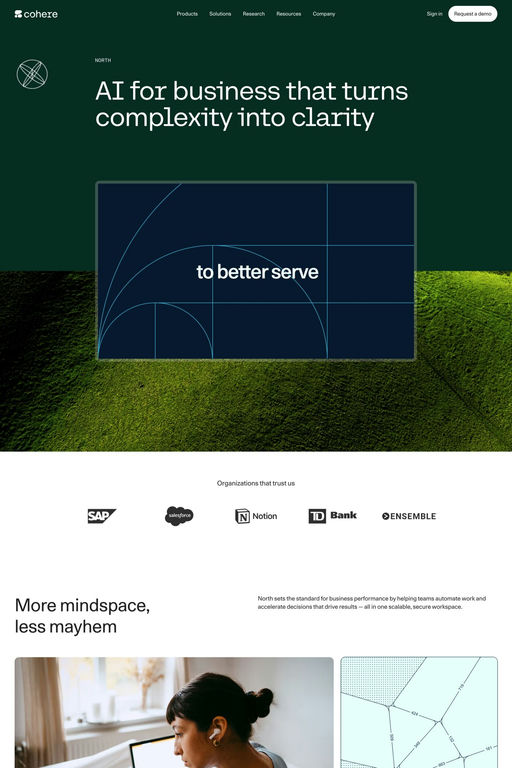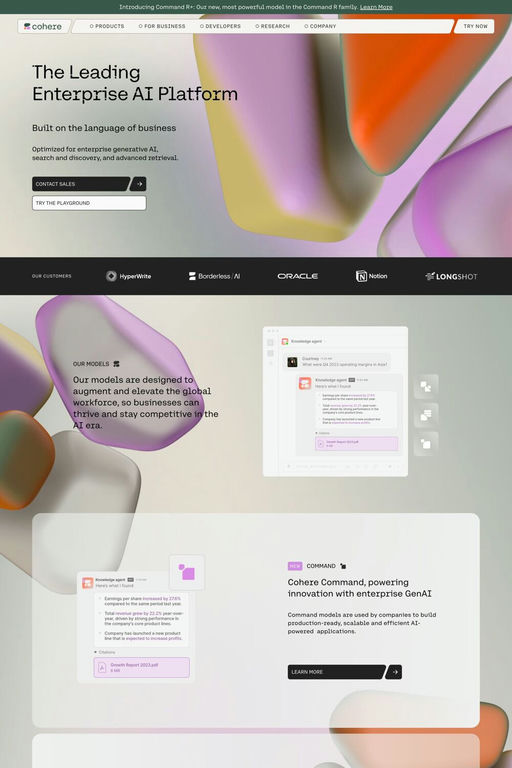
Cohere is a sans-serif typeface from NaN.
Cohere’s new custom typeface included headline, outline, text and mono styles, with the former sharing a faux mono style in reference to the digital, code-centric world the brand is part of. Keeping key elements characteristic of a typewriter typeface (serifed /i, /j and /r), they have more balanced proportions than their monospace counterparts, relating directly to the human (language) and organic side of Cohere’s world. Doubling down on this relation to natural human language, the typefaces show slightly rounded corners, offering them warmth at small and large scales.